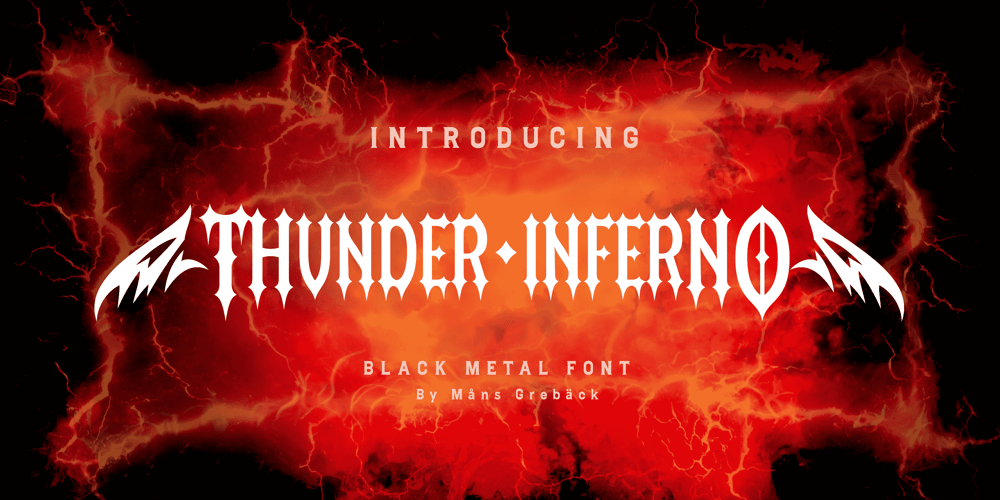
Thunder Inferno Font Family was designed by Måns Grebäck and published by Mans Greback. Thunder Inferno contains 3 styles and family package options. Thunder Inferno is a gothic black metal typeface with sharp serifs. Rooted in the aesthetics of heavy metal and the occult, this typeface is a harbinger of darkness and intensity. Evocative of Halloween and gothic grandeur, Thunder Inferno also captures a march toward darkness. It serves as a rebellious voice for skate culture and alternative lifestyles.Crafted exclusively in uppercase, this font is a growl in typographic form, a visual cacophony that grabs your attention and refuses to let go. Capitalize the first and last letters of any word for symmetrical heavy metal style.Example: Heavy metaL Enclose any word in < > ( ) [ ] { } to give it wings.Example: [HawkstylE]